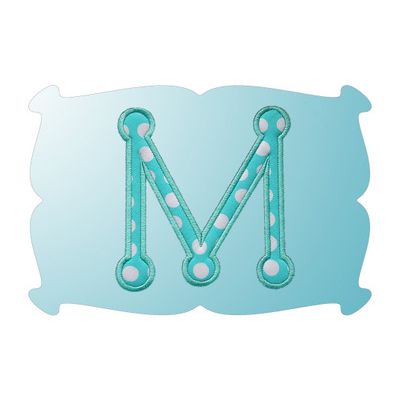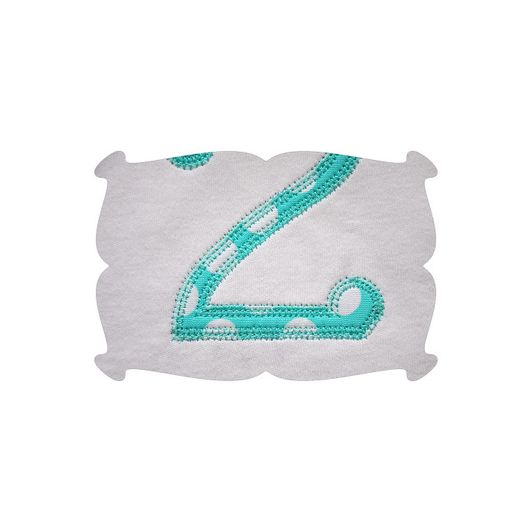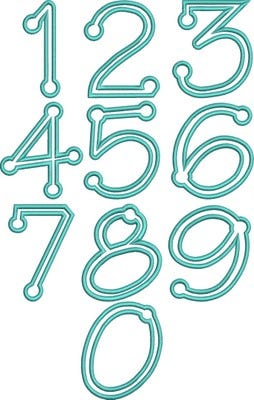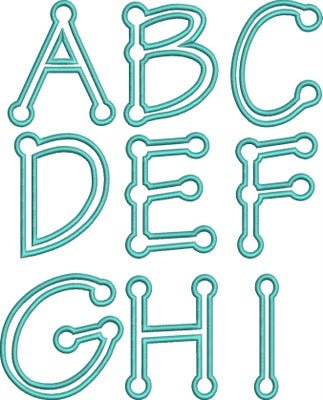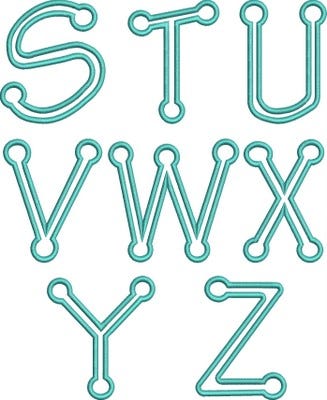
Lots Of Dots Satin Stitch Applique Monogram Embroidery Font
Lots of Dots Applique Font
I love dots!
An applique "dot" letter looks so cute on everything.
2 styles of finishing stitches: satin, outline zig zag
Upper case letters A trhu Z. Numbers 0-9.
Some say, dots are the new pink.
(but it looks cute on baby boy things too!)
Three styles of applique letters:
1. Traditional satin stitch.
2. Tradtional satin stitch with a decorative triple stitch (not shown).
3.  "outline zig zag" stitches.
Lots of Dots Applique Font includes upper case letters A thru Z in 4 sizes: 2.75, 3.5, 4.5 and 5.5 inch.
Lots of Dots Applique Font also includes numbers 0-9 in 4 sizes: 2.75, 3.5, 4.5 and 5.5 inch.